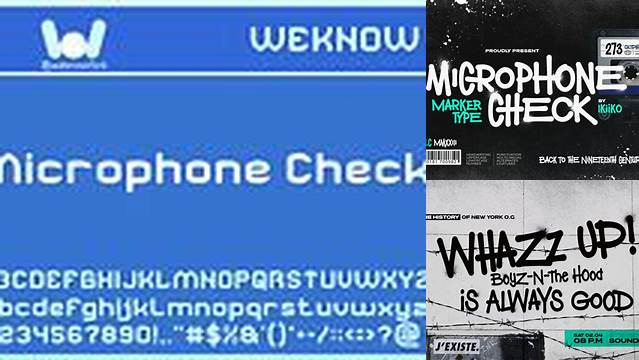
Hey guys! Are you on the hunt for the perfect font to give your projects that unique edge? Look no further! In this article, we're diving deep into the world of the Microphone Check font, a typeface known for its distinctive style and versatility. Whether you're a seasoned designer or just starting out, finding the right font can make all the difference. We'll explore what makes this font so special, where you can safely download it for free, and how to use it to its full potential. So, let's get started and elevate your design game!
What is Microphone Check Font?
The Microphone Check font stands out with its bold, slightly edgy, and undeniably modern aesthetic. It's a typeface that grabs attention, making it ideal for projects where you want to make a statement. Think logos, posters, headlines, and social media graphics. But what exactly makes it so special? Well, its unique character lies in its carefully crafted letterforms, which balance strength and style. Each character is designed to be both visually appealing and highly readable, ensuring that your message gets across loud and clear. The font often features a slightly distressed or textured appearance, giving it a raw, authentic feel that's perfect for projects aiming for an urban, gritty, or vintage vibe. It's this blend of modernity and edginess that makes the Microphone Check font a favorite among designers looking to add a touch of rebellion and individuality to their work. It's not just a font; it's a statement.
The Microphone Check font boasts several key features that make it a standout choice for various design projects. Its boldness is one of its most defining characteristics, ensuring that text commands attention and remains legible even from a distance. The slightly distressed texture adds a touch of authenticity and character, making it ideal for designs that aim for a vintage or urban aesthetic. The clean lines and modern letterforms provide a contemporary edge, ensuring it doesn't look out of place in modern designs. Versatility is another major advantage, as the font works well in headlines, logos, posters, and even smaller body text, depending on the specific design context. It also often includes a variety of weights and styles, such as regular, bold, and italic, providing flexibility to create visual hierarchy and emphasis. The font’s unique personality makes it a great choice for branding projects that want to convey strength, rebellion, or individuality. Designers often appreciate its ability to add a raw, unpolished feel to their work, which can be particularly effective in designs targeting younger audiences or those seeking a more authentic look. Overall, the Microphone Check font combines boldness, texture, and modern design to create a typeface that is both eye-catching and highly functional.
Tips for Using Microphone Check Font in Your Designs
So, you've got the Microphone Check font installed and ready to go – awesome! Now, let's talk about how to use it effectively in your designs. This font is a statement-maker, so it's perfect for projects where you want to grab attention. Think headlines, logos, posters, and social media graphics. But, like any design element, it's all about balance. Because the Microphone Check font is quite bold and edgy, it's best used sparingly. Avoid using it for large blocks of body text, as it can become tiring to read. Instead, use it to highlight key words or phrases. When pairing it with other fonts, opt for something clean and simple to provide a nice contrast. A classic sans-serif font like Helvetica or Arial can work well, or a more elegant serif font like Times New Roman can add a touch of sophistication. Consider the overall tone and style of your design. The Microphone Check font lends itself well to projects with a vintage, urban, or rebellious vibe. Experiment with different sizes and weights to create visual hierarchy and emphasis. Don't be afraid to play around with kerning and letter spacing to achieve the perfect look. And finally, always remember to test your designs on different devices and screens to ensure that the font looks good in all contexts. With a little creativity and attention to detail, you can use the Microphone Check font to create stunning designs that really stand out from the crowd.